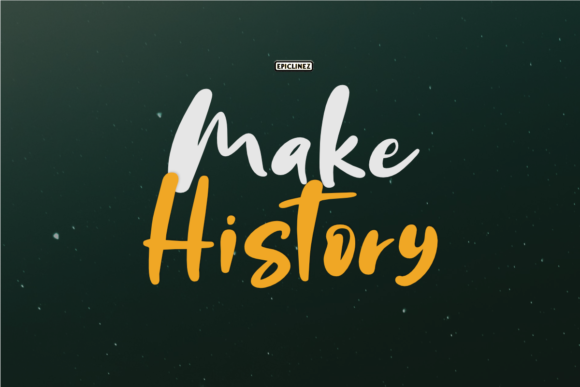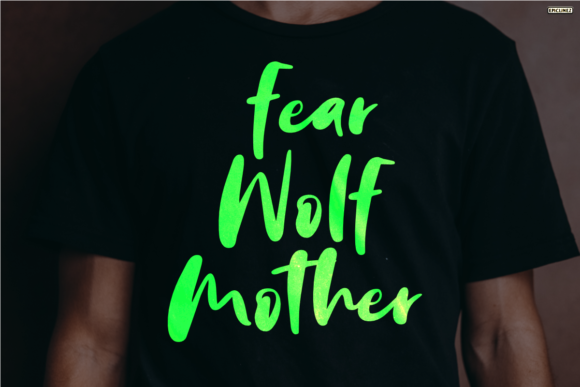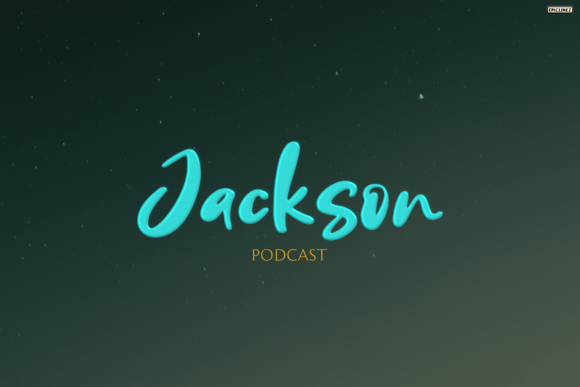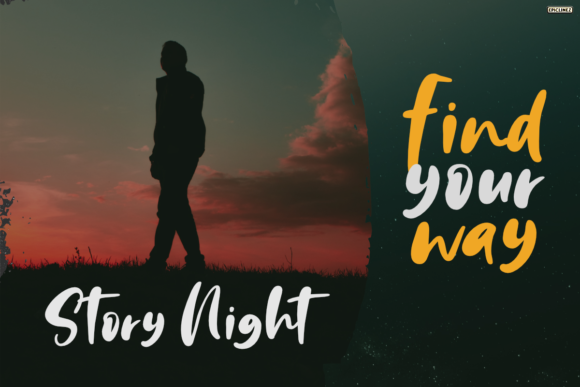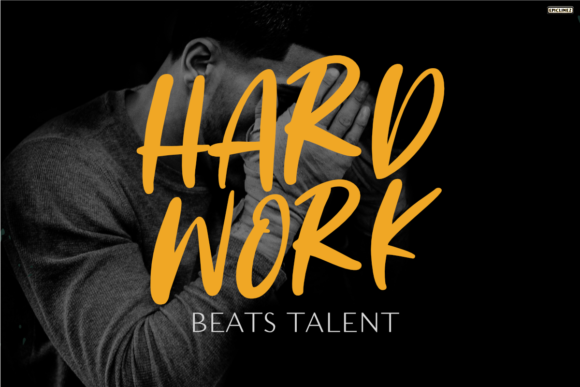
About Make History Font
Make History is a cool handwritten font. Clean and a little bit quirky, this font is the perfect fit for all of your logos, branding, social media, and crafty DIY projects.